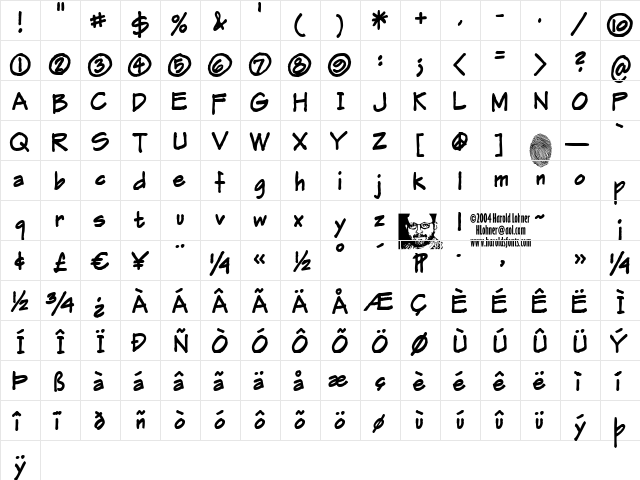
Frank the ArchitectAlt Bold Regular
Design Context for Frank the ArchitectAlt Bold Typeface
Frank the ArchitectAlt Bold takes a measured approach to typography — its balanced proportions and neutral character make it a reliable workhorse for both digital and print work. Its bold stroke weight gives it real presence on the page.